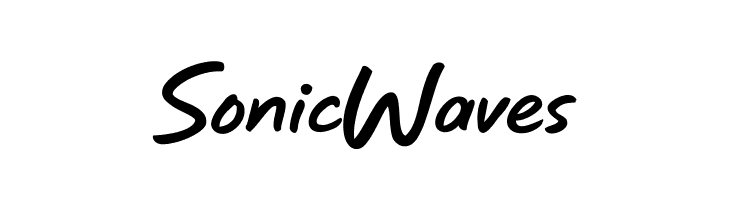
A bold, semi-expanded sans-serif font with a modern and impactful style.
A modern, semi-expanded typeface with uniform stroke widths and excellent readability.
A decorative font with a woven, textile-inspired pattern.
A bold, geometric font with sharp angles and a modern style.
An elegant and ornate script font with flowing, decorative letterforms.
A playful and artistic script font with a handwritten feel.
A playful, handwritten script font with elegant, flowing lines.
An elegant, flowing script font with thin, delicate strokes and a handwritten appearance.
A decorative font with elegant curves and whimsical flourishes.